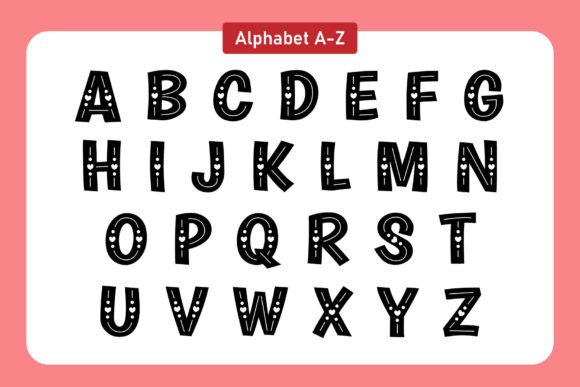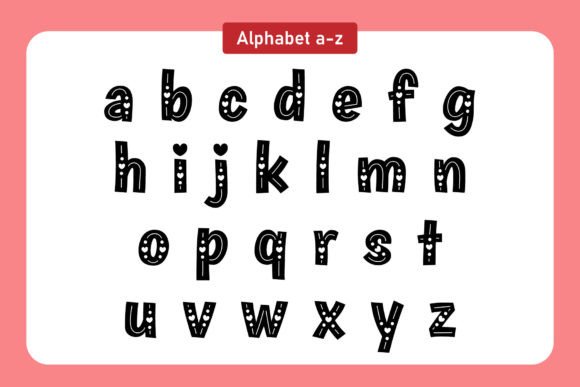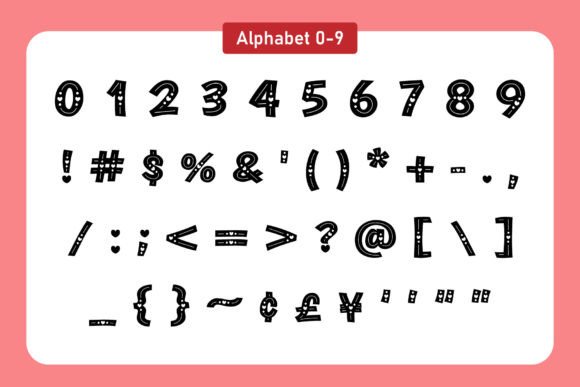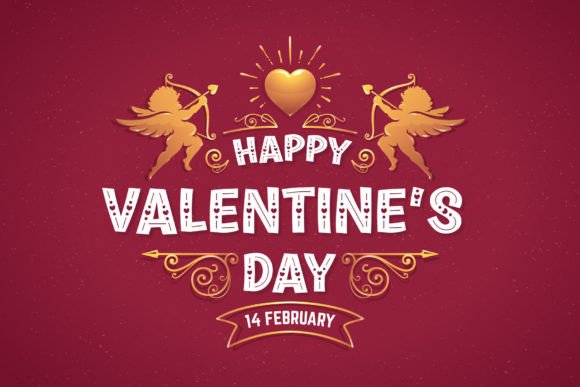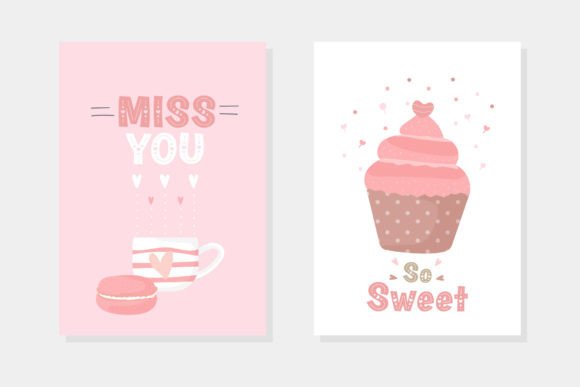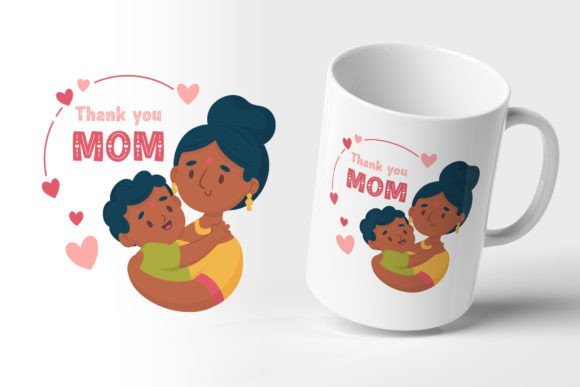
The Perfect Match for Your Designs: Cupid Font
Have you ever been working on a project, and suddenly, a burst of creativity hits you? That’s exactly what happened to me when I stumbled upon the Cupid Font. I was designing a Valentine’s Day card, and I wanted to add a touch of whimsy to it. The Cupid Font was the perfect match for my design, and it instantly brought a smile to my face.
The Cupid Font is a decorative font that exudes cuteness and fun. It’s designed to add a playful twist to your designs, making it perfect for special occasions like Valentine’s Day and Mother’s Day. When combined with bright and pastel colors, the Cupid Font takes your designs to the next level.
As a designer, you’ll appreciate the value of the Cupid Font in adding a personal touch to your creations. Its unique charm and beauty make it a valuable addition to any design project, and it’s sure to leave a lasting impression on your audience.
Cupid Font Key Features
- Unique Characteristics: Cupid Font features a distinctive, hand-drawn design with a playful and whimsical feel, making it perfect for romantic and creative projects.
Cupid Font Review
I recently had the chance to work with the Cupid font, and I must say, it’s a unique and charming addition to any design project. ✨ One of the things I like about Cupid is its playful and whimsical feel, making it perfect for projects that require a touch of romance or nostalgia. It’s also highly legible, even at smaller font sizes, which is a must for any font.
Another feature I appreciate is the extensive character set, which includes a wide range of languages and special characters. This makes it an excellent choice for international projects or those that require a lot of custom typography. ✨ Additionally, the font is highly customizable, allowing designers to adjust the weight, spacing, and other attributes to fit their specific needs.
- ⚠️ Limited support for bold and italic styles, which may be a concern for designers who rely heavily on these attributes.
- ⚠️ The font may not be suitable for projects that require a modern or minimalist aesthetic, as it has a distinctly vintage feel.
Overall, I think Cupid is a great addition to any designer’s toolkit. While it may have some limitations, its unique character and high legibility make it an excellent choice for projects that require a touch of personality and charm. I would definitely recommend it to designers who are looking for a distinctive and engaging font.
Cupid Font: A Practical Application Guide
Tips for Getting the Most Out of the Cupid Font
Experiment with different font combinations and styles to achieve a unique look.
Use the Cupid Font for romantic and whimsical designs.
Adjust the font size and color to create contrast and emphasis.
The Cupid Font is ideal for:
Valentine’s Day and love-themed designs
Romantic greeting cards and gift tags
Whimsical and playful branding and marketing materials